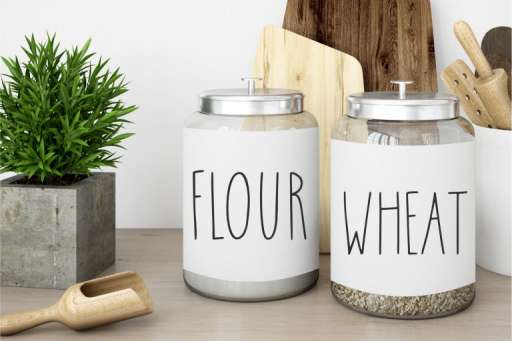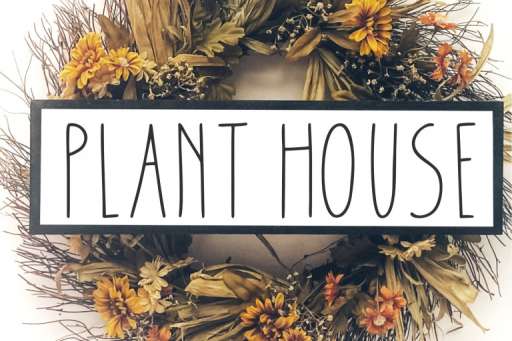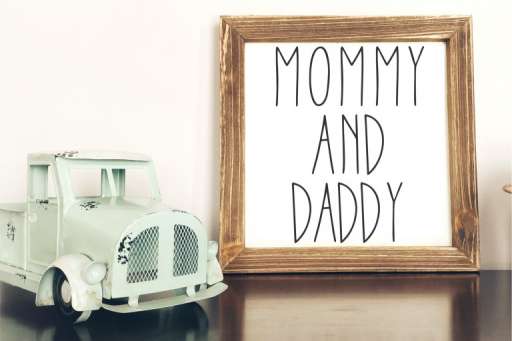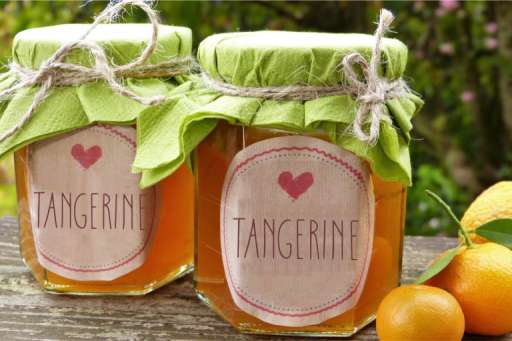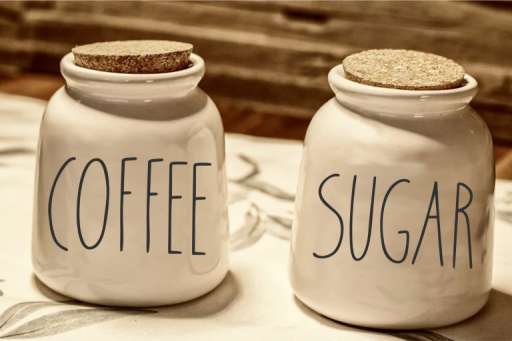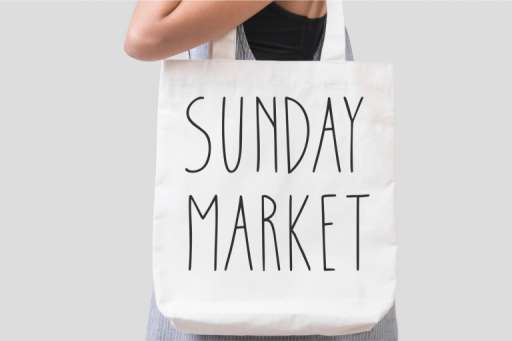
Farmtastic Font - Handwriting Logo Font From Jimtype Studio
Farmtastic Font
Farmtastic – Rae Dunn Farmhouse Font Jimtype Studio
Farmtastic (All caps characters) is a tall and thin font perfect for your home decor and craft designs. This font is especially perfect for craft projects, party invitations, home decor, signs,sign, shirt designs, country decor, farmhouse signs, websites, branding, children’s designs, svg designs, blogs, logos, invitations and more!